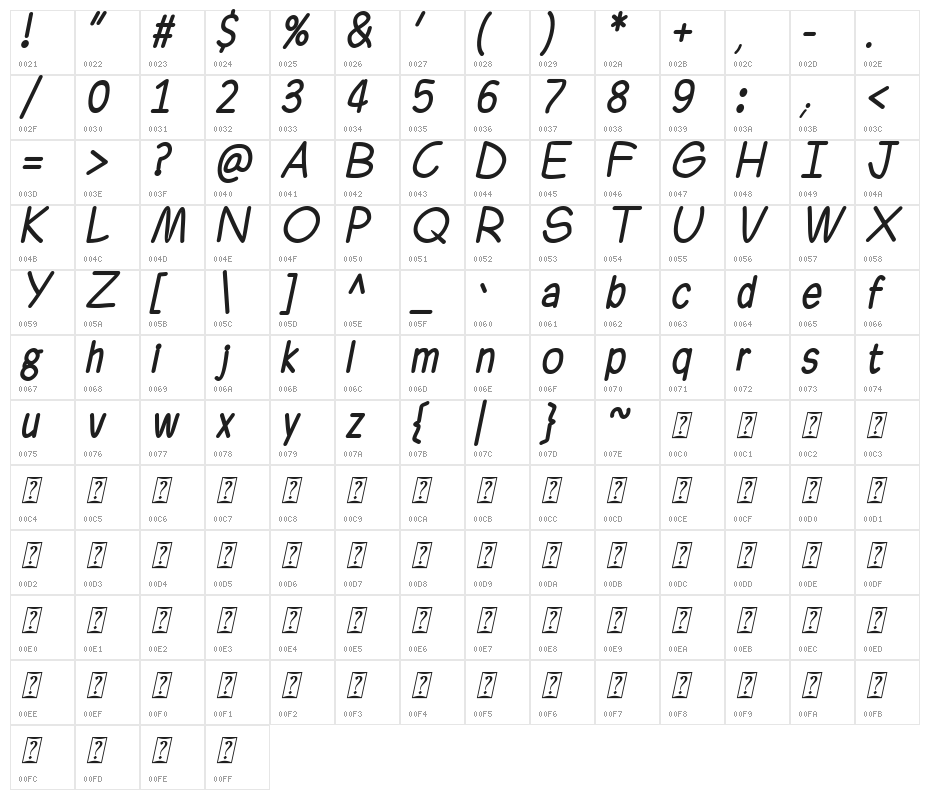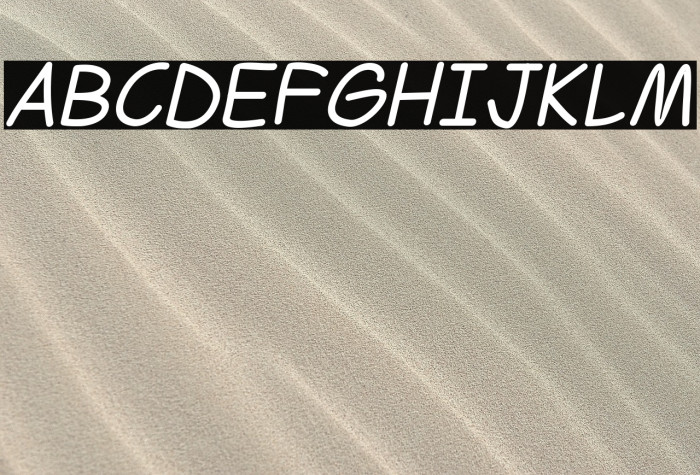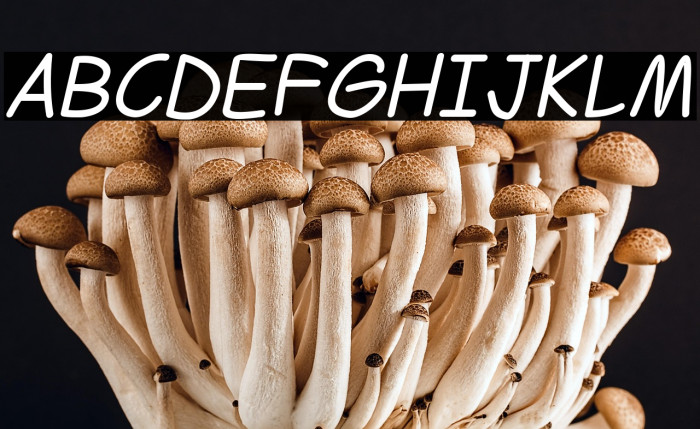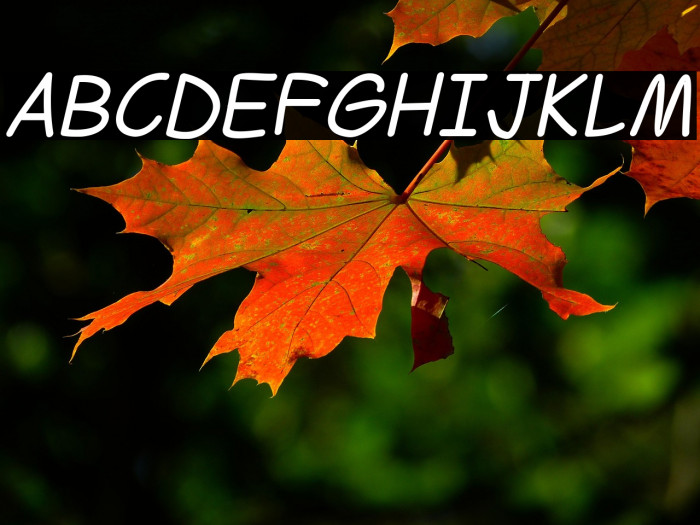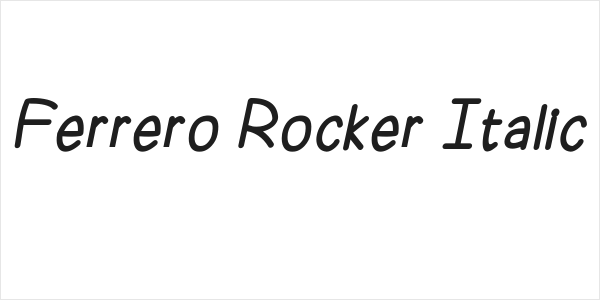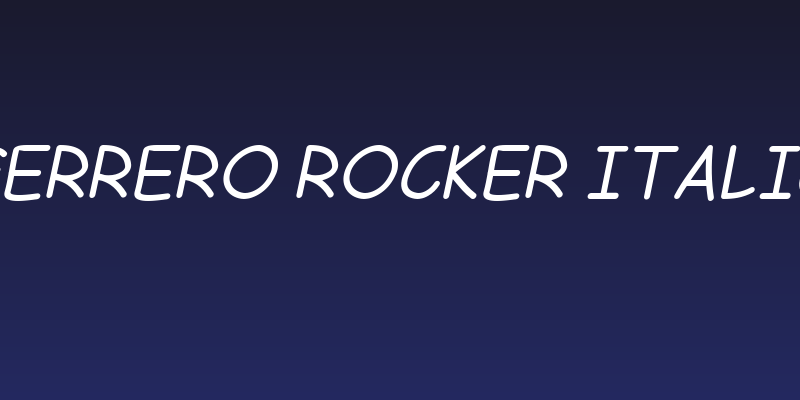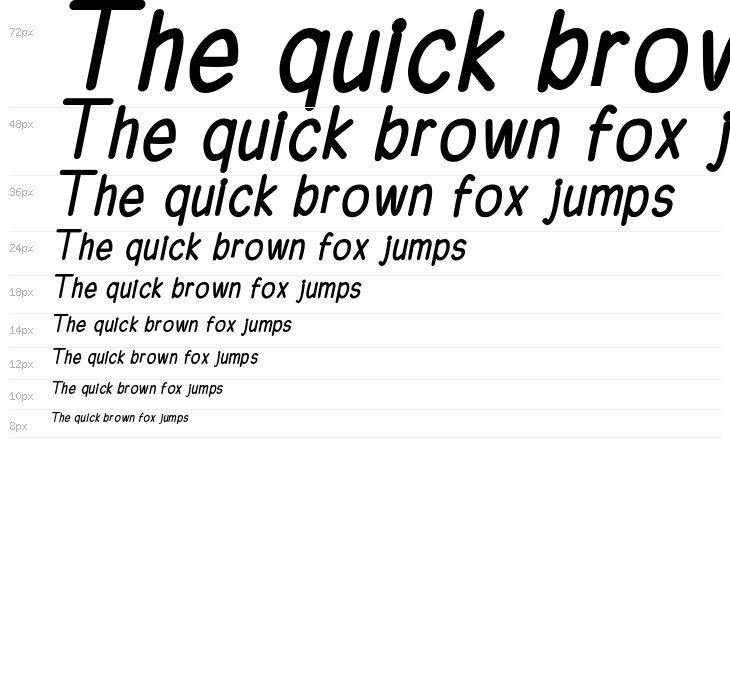
Ferrero Rocker Italic Font
Ferrero Rocker Italic Description
This font features a playful and dynamic style with a handwritten appearance. The letters are slightly slanted, giving it an italicized look that adds a sense of movement and fluidity. The strokes are consistent in thickness, providing a medium contrast that balances readability with a casual aesthetic. The characters are well-spaced, ensuring clarity and legibility even in smaller sizes. This font's informal and approachable design makes it suitable for a variety of creative projects.
| Proposed Projects | Ideal for greeting cards, children's books, casual branding, and social media graphics. |